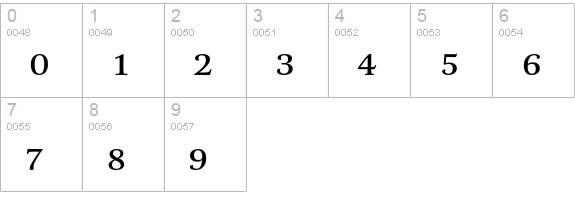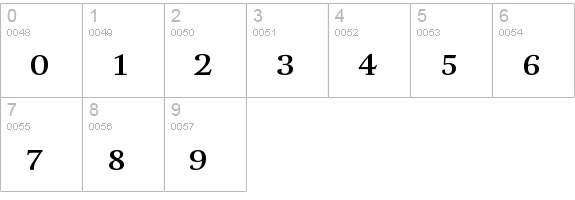
Introducing DTLUnicoT-Caps, a stylish and versatile font that exudes elegance and sophistication. This unique typeface features beautifully crafted capital letters with a modern twist, making it perfect for a wide range of design projects. Whether you're creating invitations, logos, posters, or branding materials, DTLUnicoT-Caps will add a touch of class to your work. What sets DTLUnicoT-Caps apart is not only its striking aesthetic but also its versatility. It can be used for both formal and informal designs, giving you the freedom to explore different creative possibilities. The font's clean lines and sleek design make it a standout choice for any project. Best of all, DTLUnicoT-Caps is completely free to download at FontsMarket.com. This means you can access this stunning font without any cost, making it a valuable addition to your design toolkit. Don't miss out on the opportunity to elevate your designs with DTLUnicoT-Caps – download it today and unlock a world of possibilities.